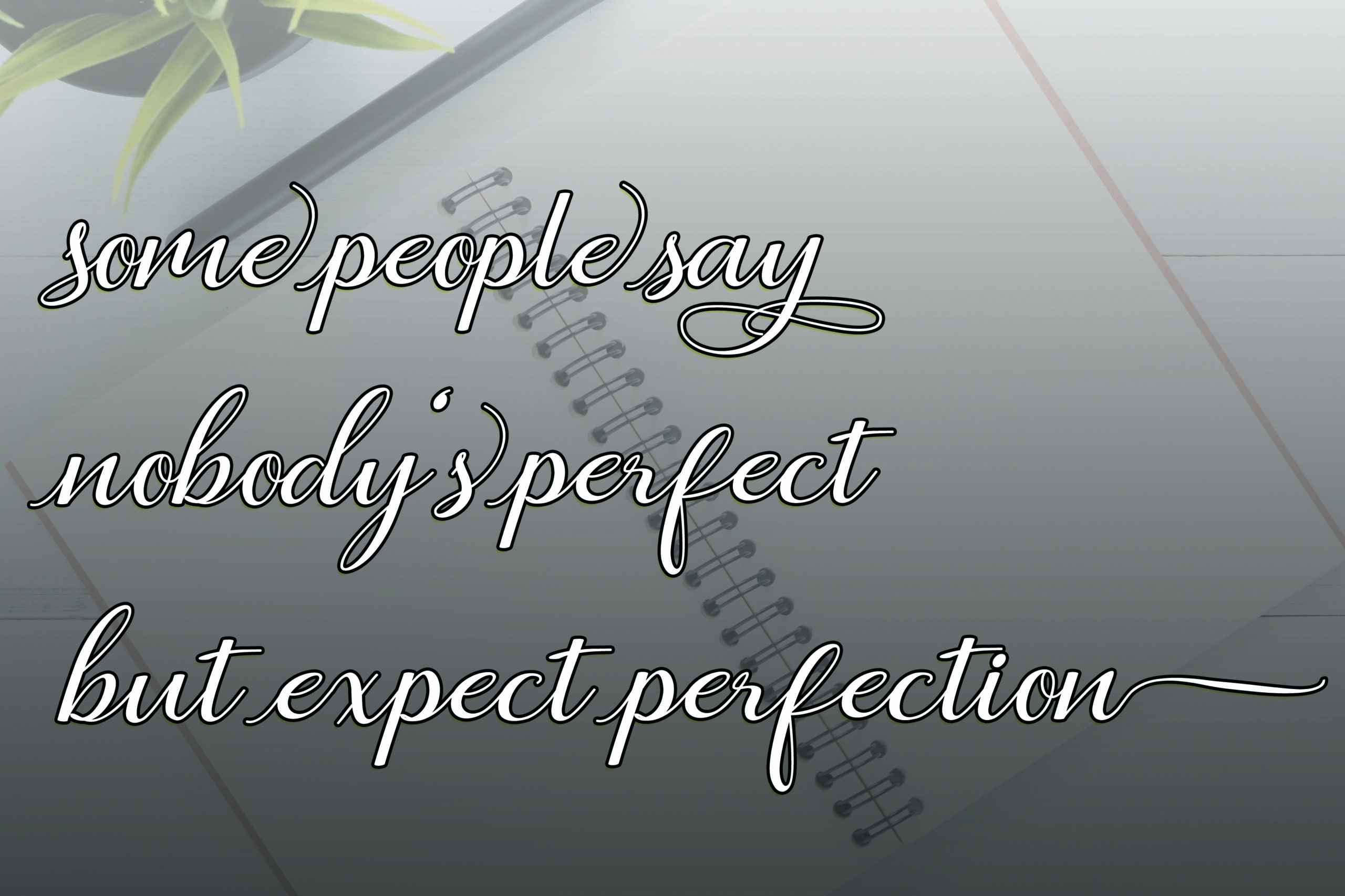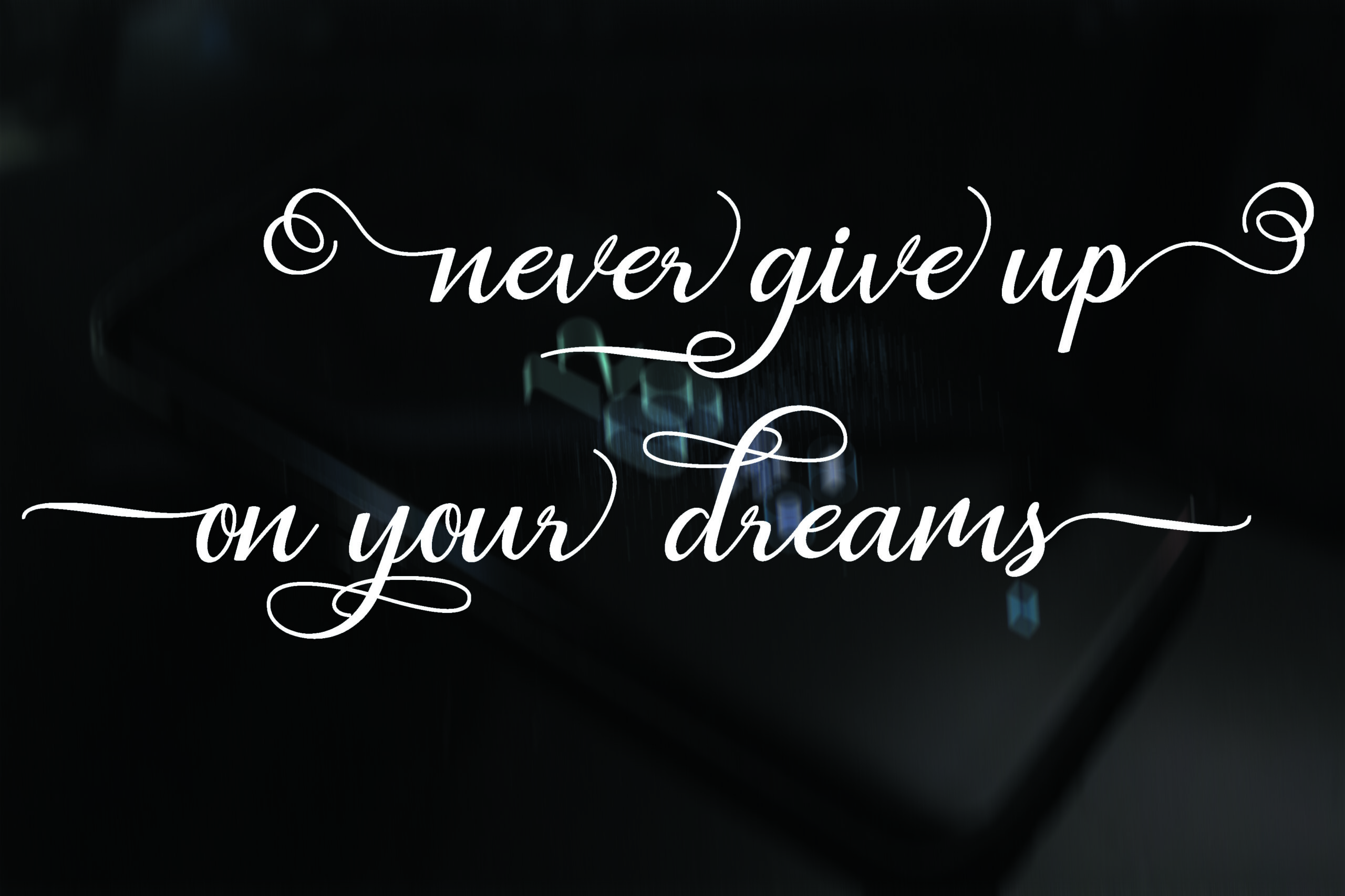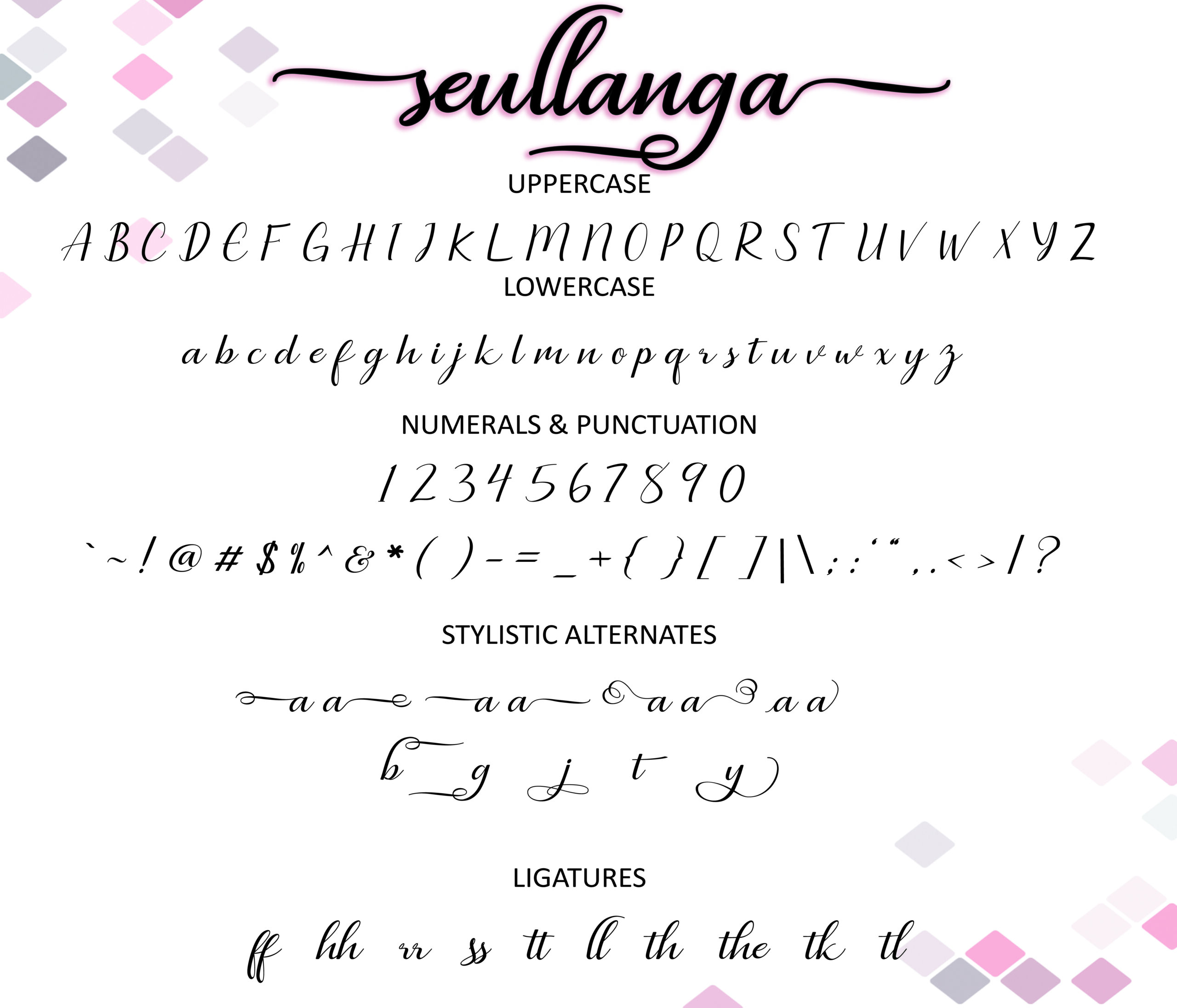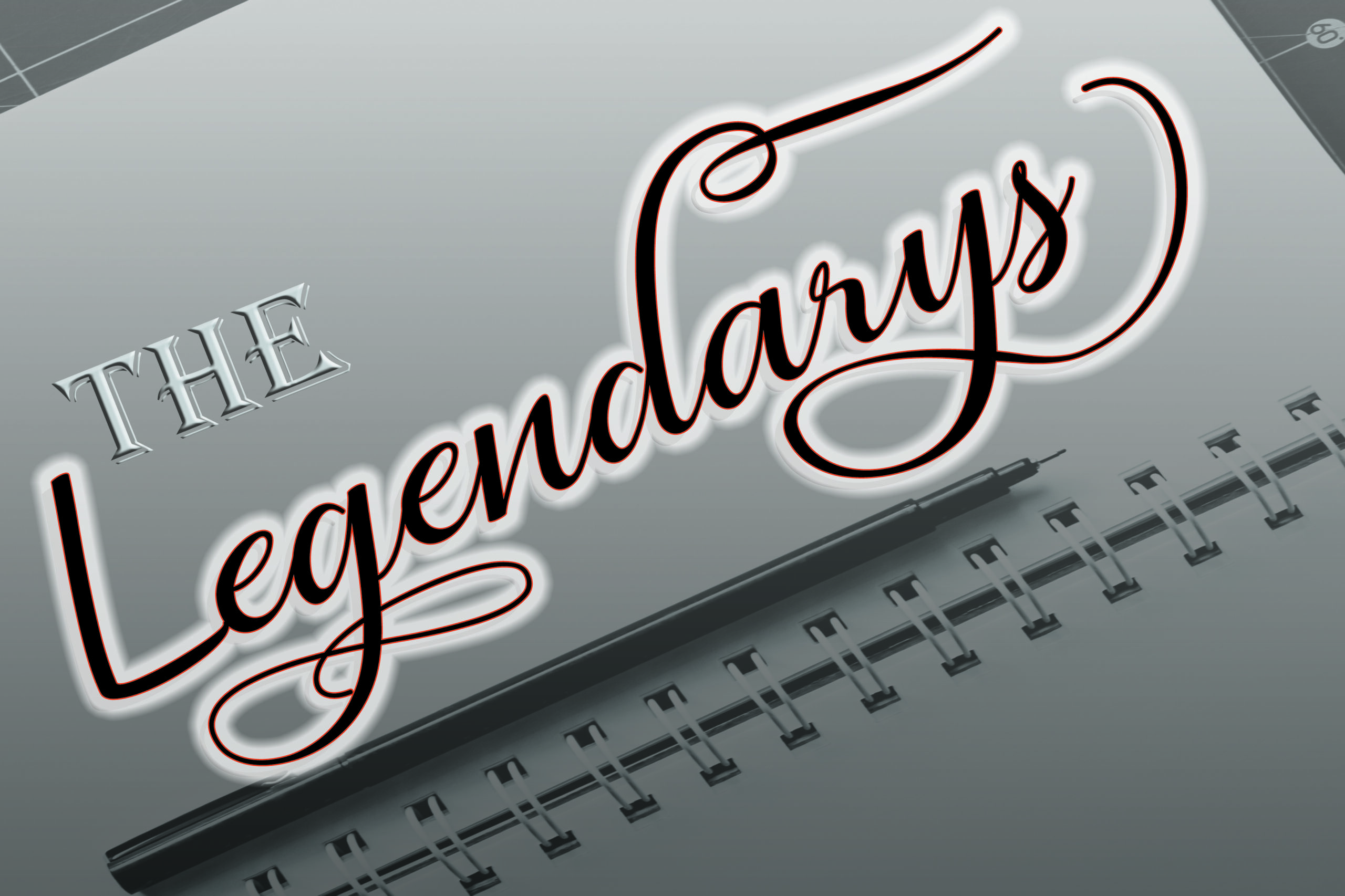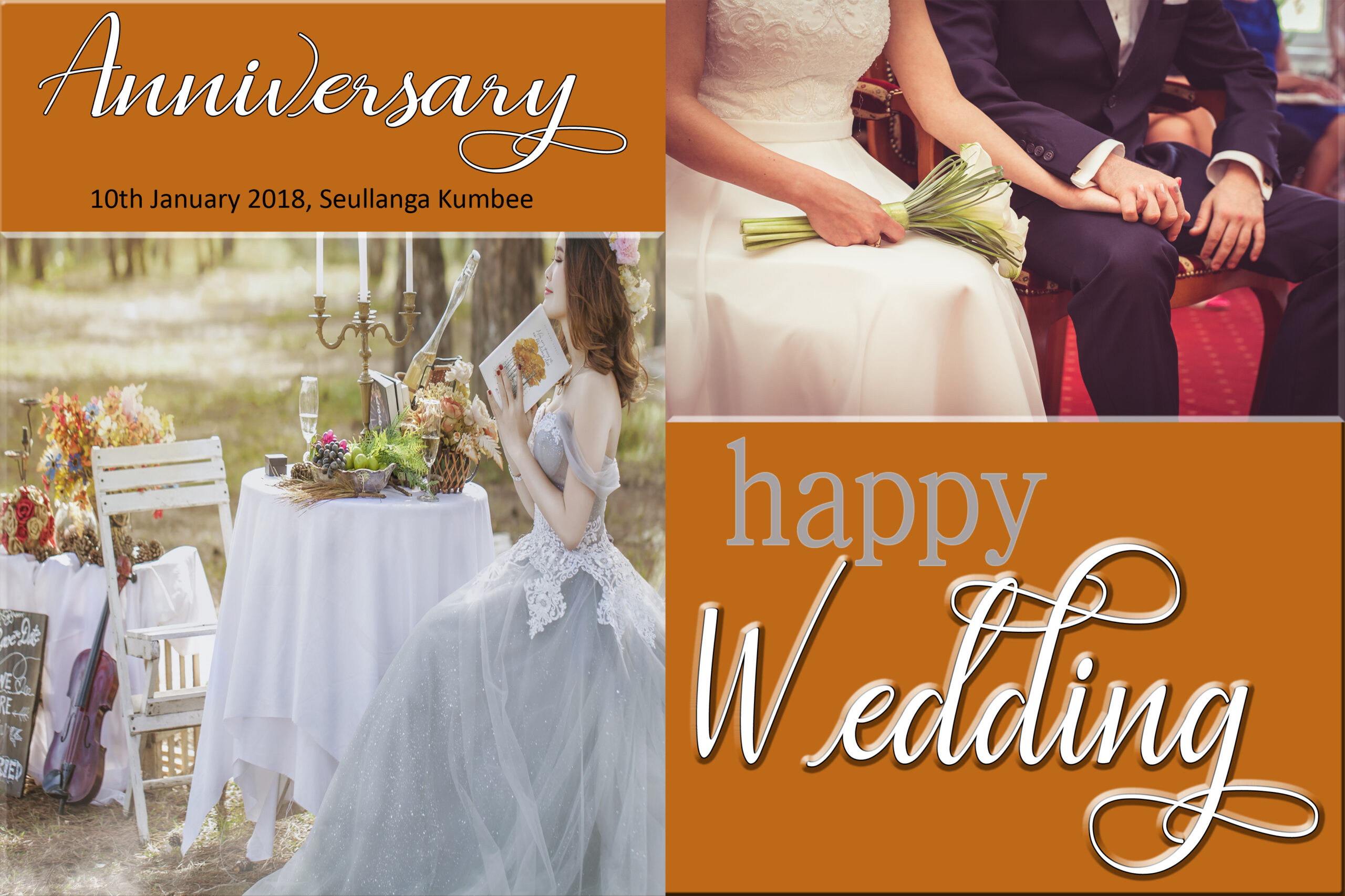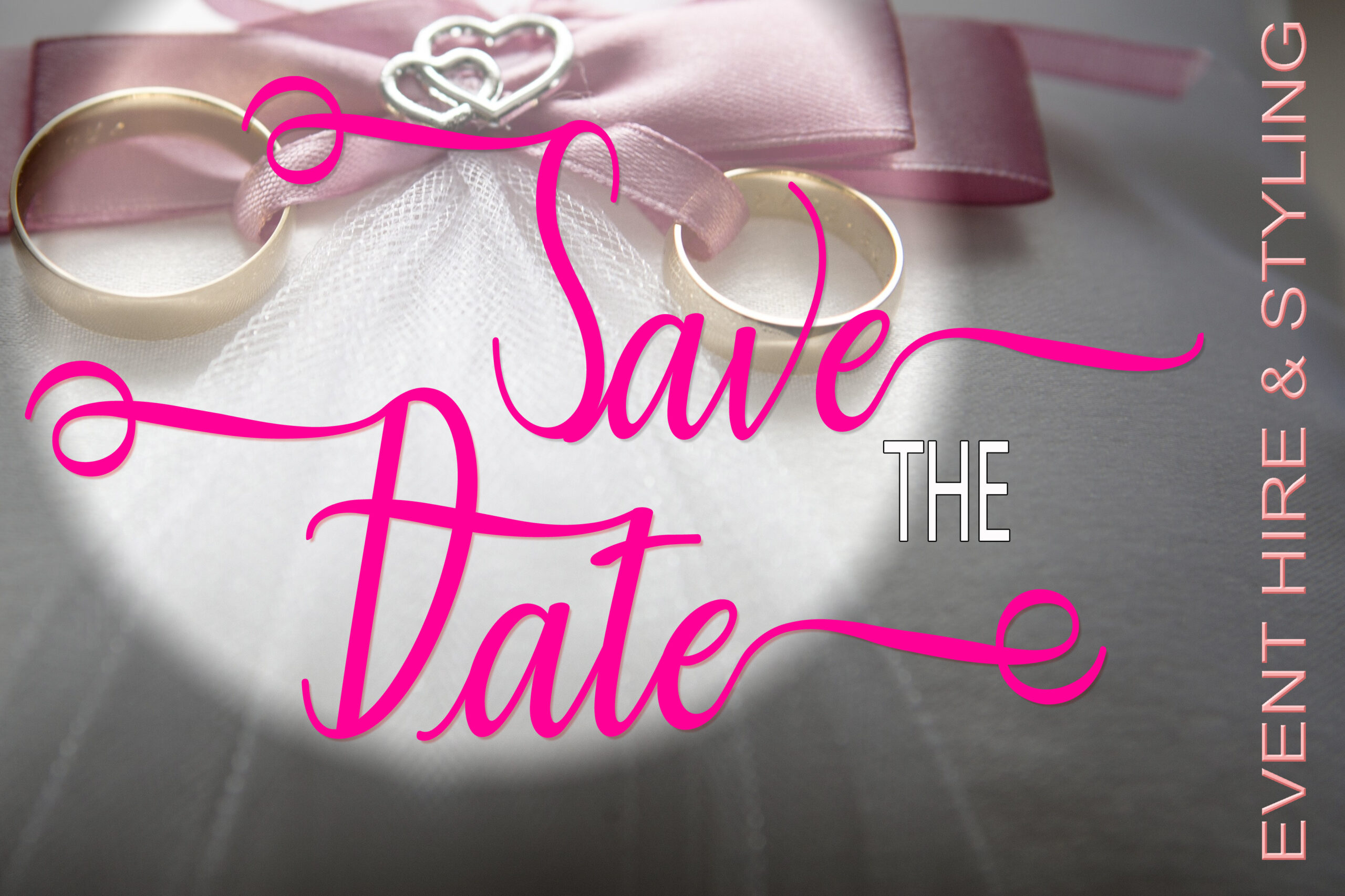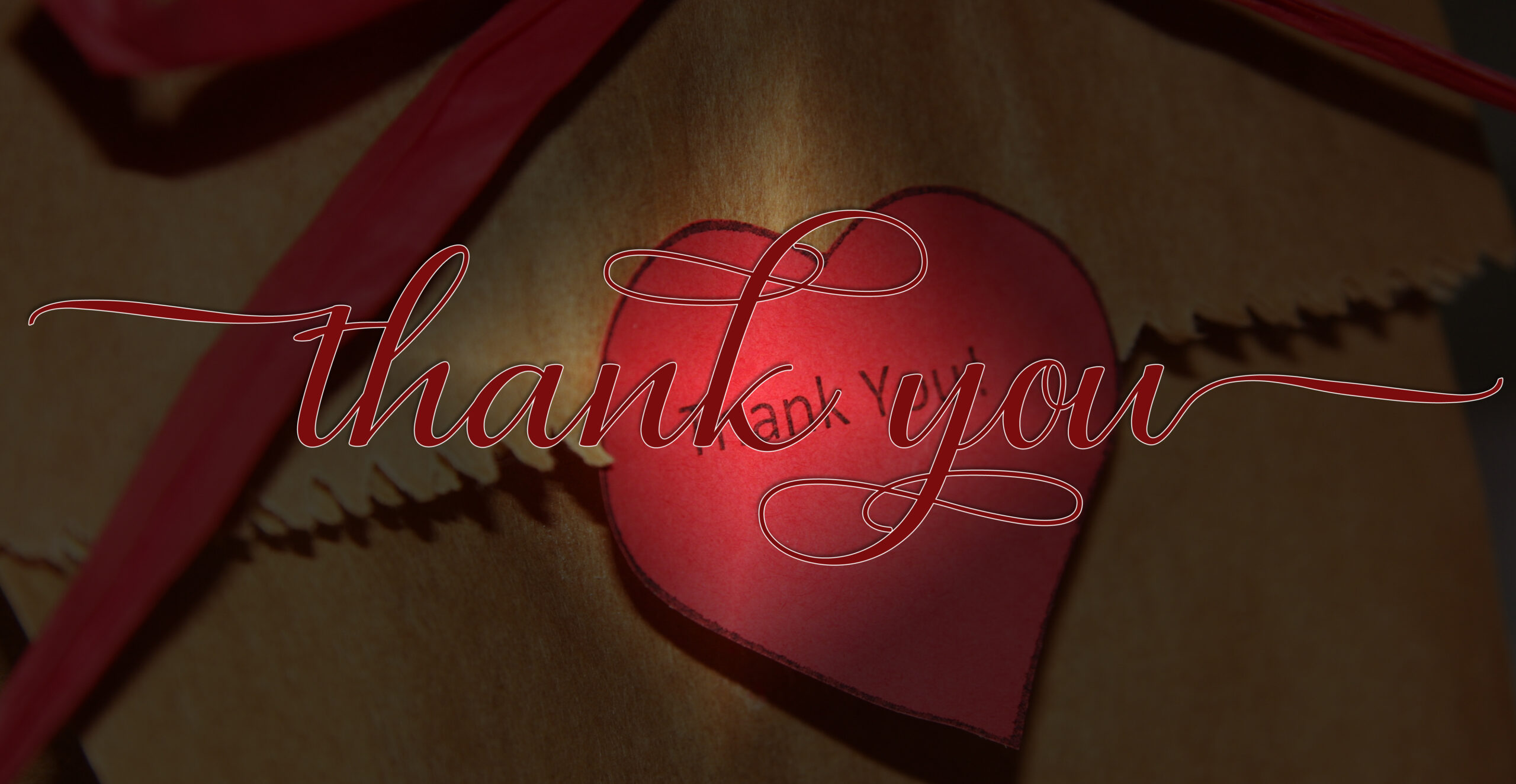
Seullanga Font
About Seullanga Font
Seullanga is a new, fresh handmade script with a calligraphic style. It features decorative characters and has a dancing baseline.
It’s the perfect font for creating greeting cards, branding materials, business cards, quotes, posters and much more.
The Seullanga Script comes with more than 450 unique glyphs.